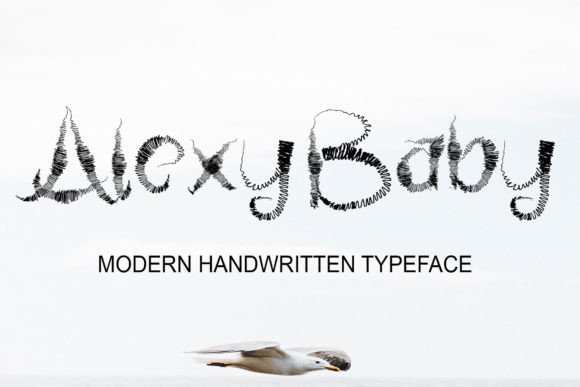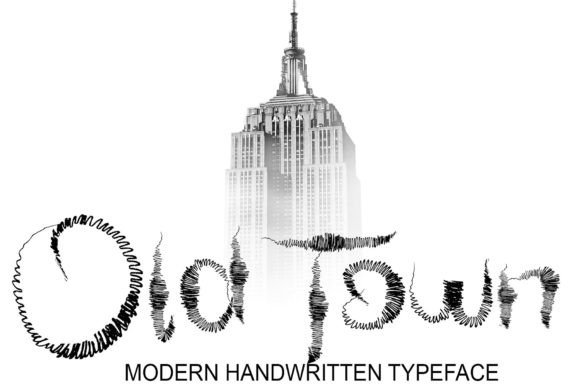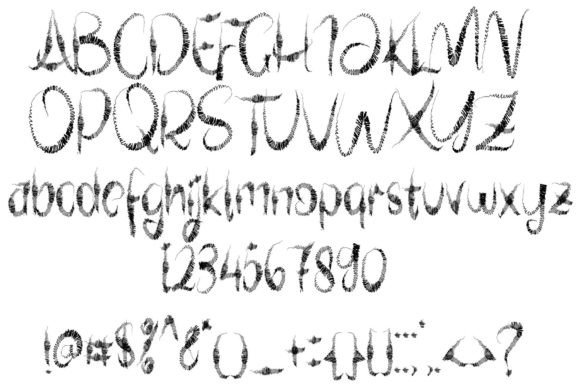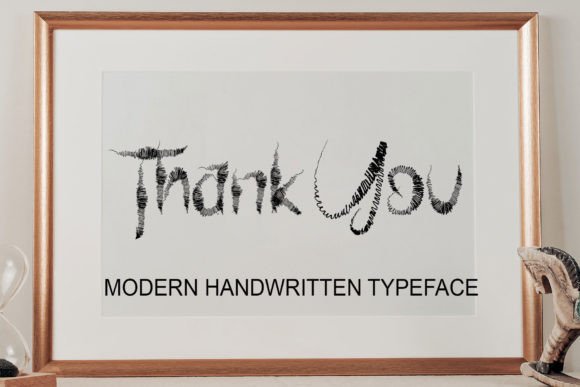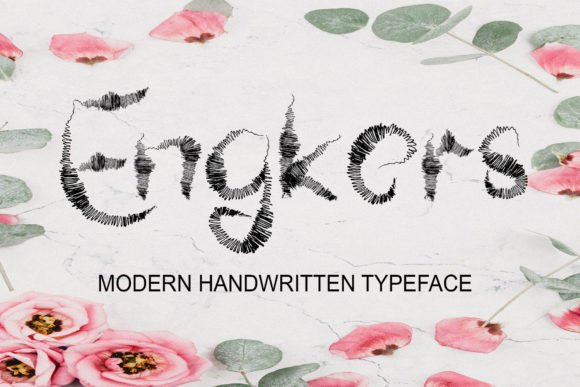
Introducing Engkers Font: Elevate Your Designs with Elegance and Sophistication
Are you tired of using the same old fonts in your designs? Look no further than Engkers Font, a stunning handwritten font that is sure to become your new favorite. With its perfect blend of classy calligraphic influences and modern freshness, Engkers Font is the ideal choice for designers and crafters looking to take their projects to the next level.
The Story Behind Engkers Font
Engkers Font is a meticulously crafted font that boasts a unique and elegant style. Its creator has poured their heart and soul into designing a font that is not only beautiful but also versatile and easy to read. The result is a font that exudes sophistication and refinement, making it perfect for a wide range of design applications.
Key Features of Engkers Font
- Handwritten with love: Engkers Font is a handwritten font that has been carefully crafted to mimic the fluidity and expressiveness of handwriting.
- Classy calligraphic influences: The font’s calligraphic roots give it a touch of elegance and sophistication, making it perfect for designs that require a high level of refinement.
- Contemporary and fresh: Despite its classic influences, Engkers Font feels modern and fresh, ensuring that your designs will stand out from the crowd.
- Easy to read: The font’s clear and legible design makes it easy to read, even at small sizes.
- Versatile: Engkers Font can be used for a wide range of design applications, from branding and advertising to packaging and digital media.
Why Choose Engkers Font?
With so many fonts available, why choose Engkers Font? Here are just a few reasons why designers and crafters are falling in love with this exquisite font:
- Unique and distinctive: Engkers Font is a one-of-a-kind font that will help your designs stand out from the crowd.
- High-quality design: The font’s meticulous design ensures that it will look great in any design application.
- Support for multiple languages: The font supports multiple languages, making it a great choice for designers working on international projects.
How to Use Engkers Font in Your Designs
Using Engkers Font in your designs is easy. Here are a few tips to get you started:
- Pair it with a sans-serif font: Pair Engkers Font with a clean sans-serif font to create a striking contrast.
- Use it for headlines and titles: Engkers Font is perfect for headlines and titles, where its elegant design can really shine.
- Experiment with different colors: The font’s versatility means it will look great in a wide range of colors and design applications.
| Font Name | Engkers Font |
| Author | Canden Meutuah |
In conclusion, Engkers Font is a truly exquisite handwritten font that is sure to become a favorite among designers and crafters. Its perfect blend of classy calligraphic influences and modern freshness makes it the ideal choice for a wide range of design applications. Whether you’re looking to create a stunning brand identity, craft beautiful packaging, or simply add a touch of elegance to your digital media, Engkers Font is the perfect choice. So why wait? Fall in love with Engkers Font today and take your designs to the highest levels!